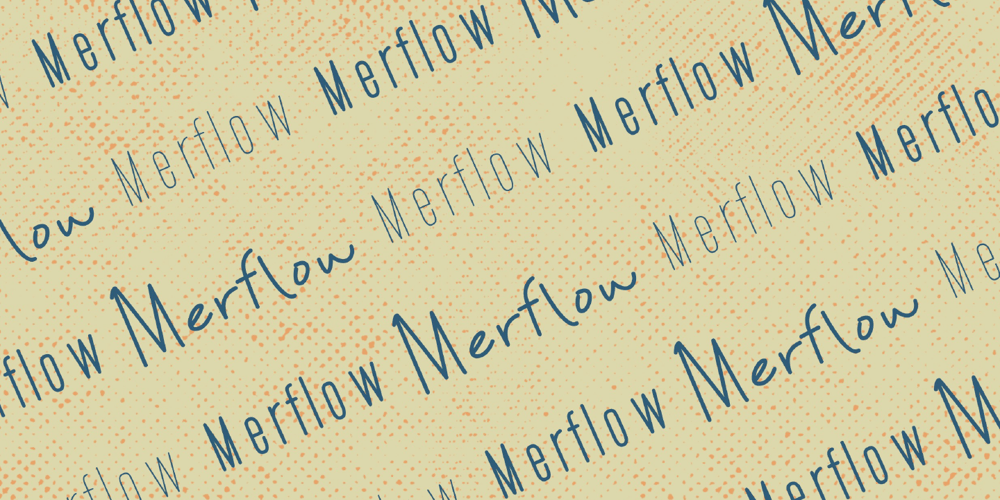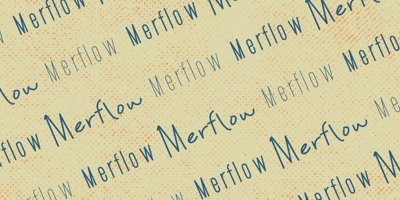
Merflows Font Family was designed by Khair Unnas and published by Khaiuns. Merflows contains 3 styles and family package options. A perfect fusion of elegance and simplicity, “Merflows” is a captivating piece of typographic art. This font offers two distinctive styles: firstly, a sans serif condensed style that creates a modern and clean impression with two thickness options, regular and bold. Providing clarity and simplicity for a variety of design projects.Meanwhile, in the realm of handwriting, “Merflows” brings forth naturalness with a free and unbound style. Filled with beautiful ligatures, each letter merges harmoniously, providing a creatively boundless touch. Without strict rules, this font is ideal for breathing life into storybooks and poetry, exuding a gentle elegance and natural beauty.With “Merflows,” every word becomes not just communication but also an artistic experience. Showcase uniqueness and beauty in every design project with this font that seamlessly blends elegance and natural charm. Complete Font Package, Free Updates, Dual Styles for Versatility, Clarity and Simplicity, Natural Handwriting Elegance, Creative Freedom, Versatile Thickness Options, Ideal for Storytelling, Artistic Harmony, Elegance Meets Natural Beauty.